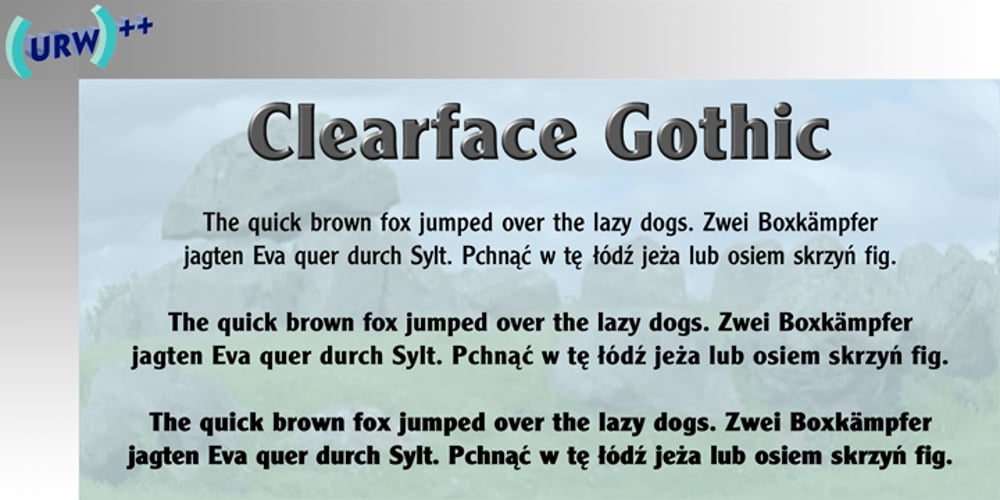
Clearface Gothic Font Family was designed by Morris Fuller Benton and published by URW Type Foundry. Clearface Gothic contains 4 styles and family package options. Clearface Gothic was designed by Morris Fuller Benton for American Typefounders. The design was released between 1907 and 1910 for text and display use. Since then, many variations have been released. An interesting typeface, Clearface Gothic is useful in advertising for display and small quantities of text.